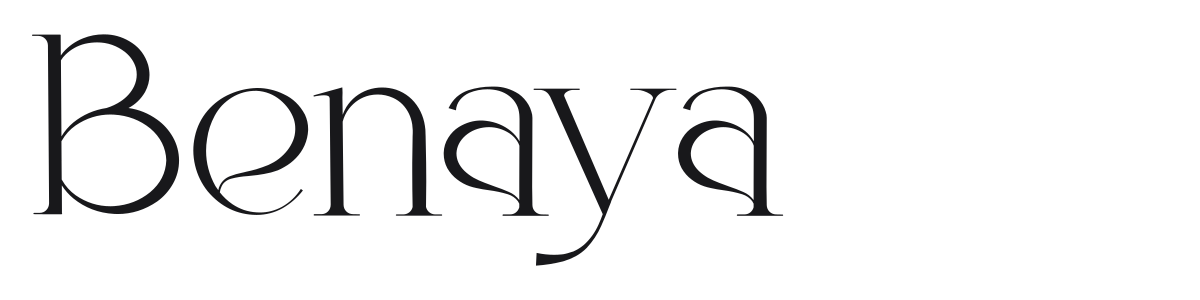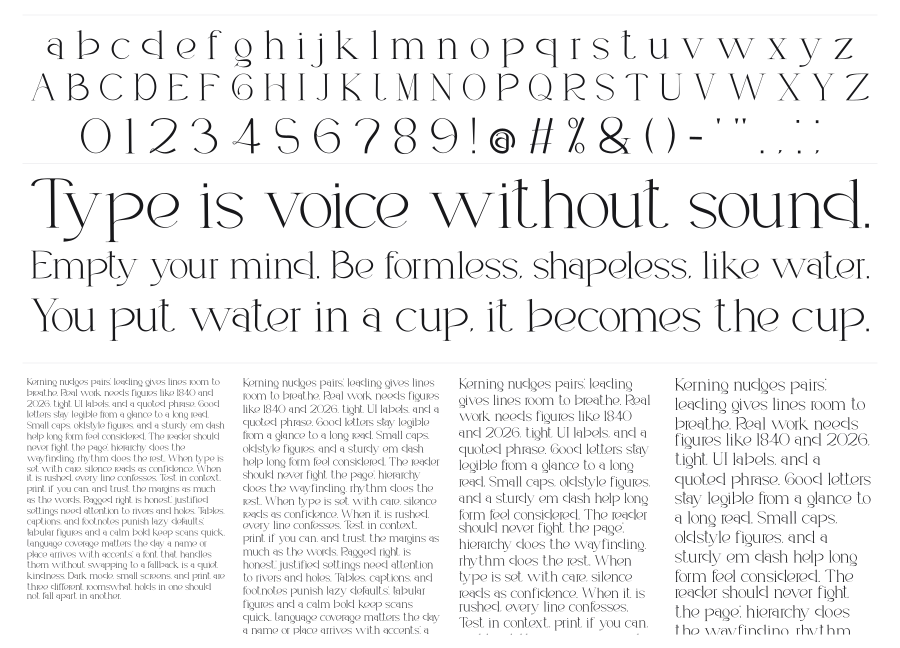
Benaya
by Muksal Creative · Website
Benaya is a high-contrast modern serif with hairline thins, sharp pointed serifs, and tall open proportions. The design borrows from Didone tradition but softens it with fluid calligraphic curves at stroke transitions, giving it a fashion-editorial warmth. It reads as polished and couture-adjacent at large sizes.